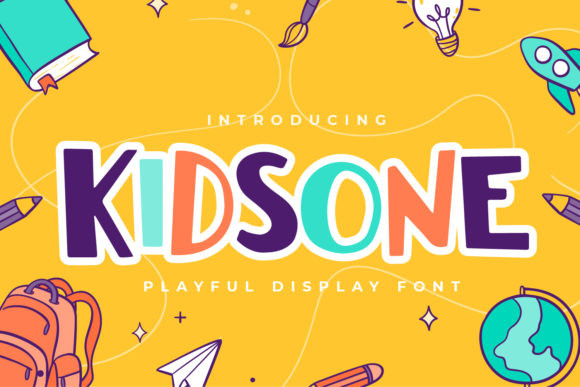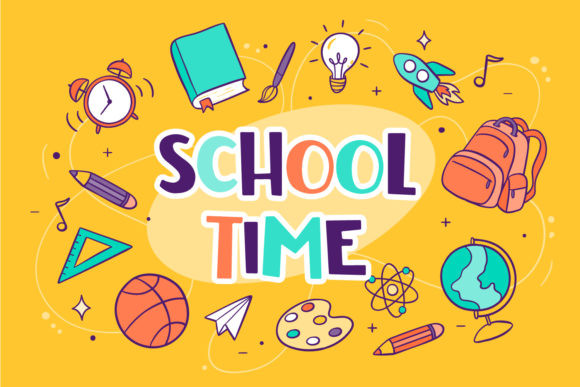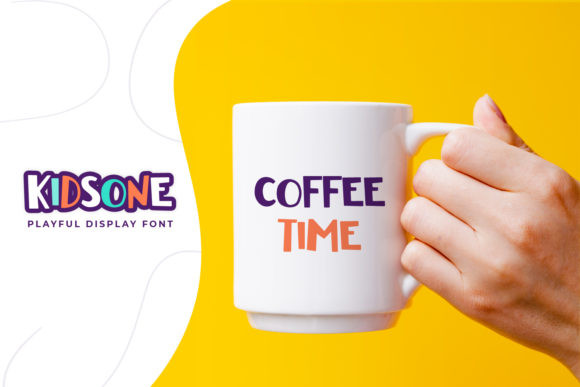
Kidsone Font
Kidsone is a unique display font. It’s playfulness make it great for creative projects, be it inspirational wall posters or for communicating your brand.